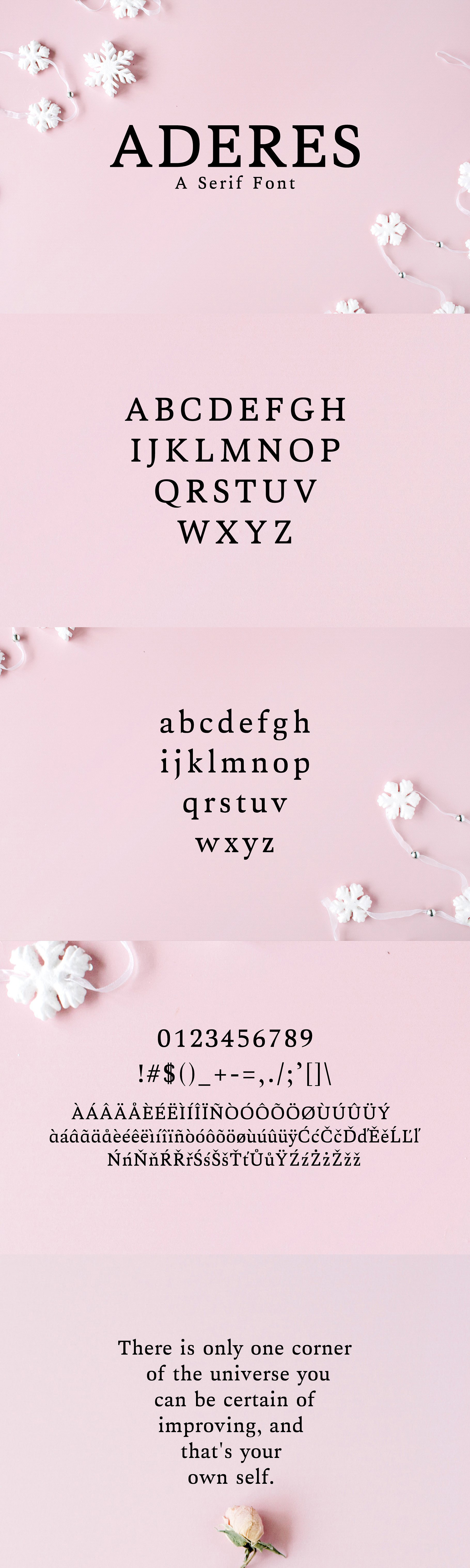
Aderes Serif 2 Font Family Pack
Aderes A Serif Font Family is a minimal simple serif font family, which contains 2 weights and It features unique and modern serif look and feel. Perfect for gorgeous logos, titles, web layouts and branding. It looks gorgeous in all caps with a wide-set spacing if you want to try a classy look, or beautiful on its own in capital and lowercase letters for something completely timeless.
Aderes Font Features:
- Uppercase Multilingual Letters
- Lowercase Multilingual Letters
- Non English Characters ( Latin Extended A )